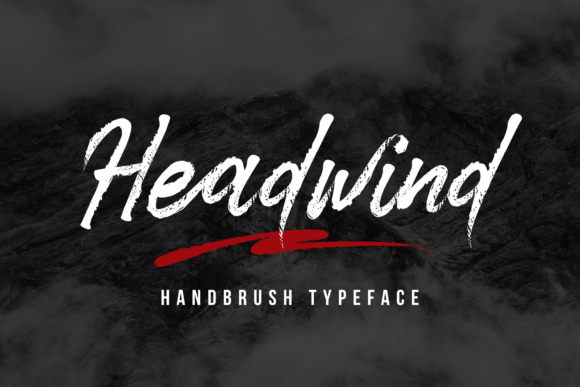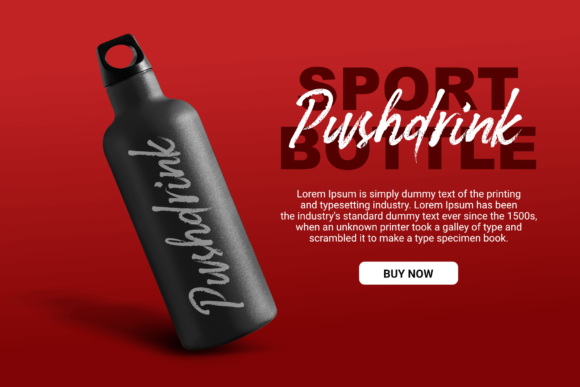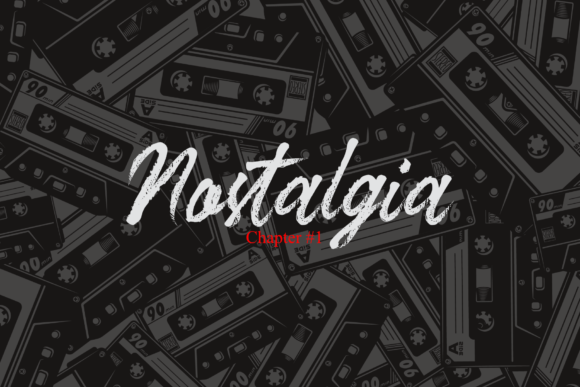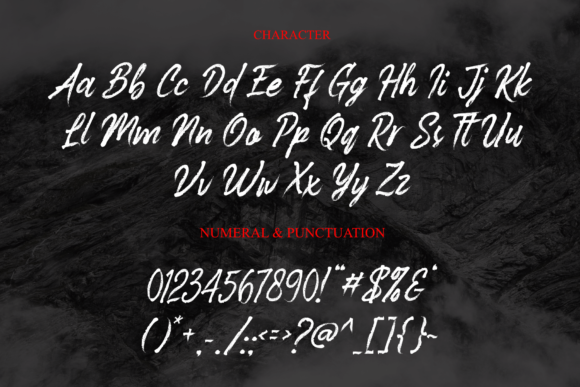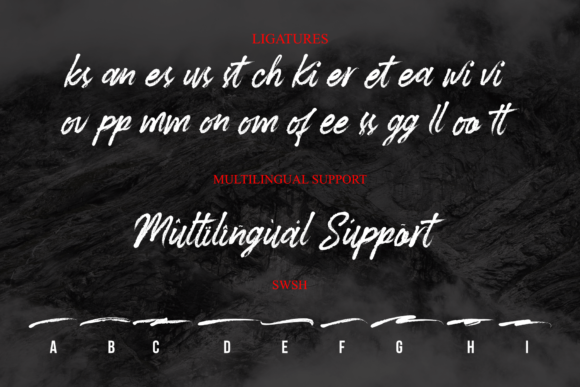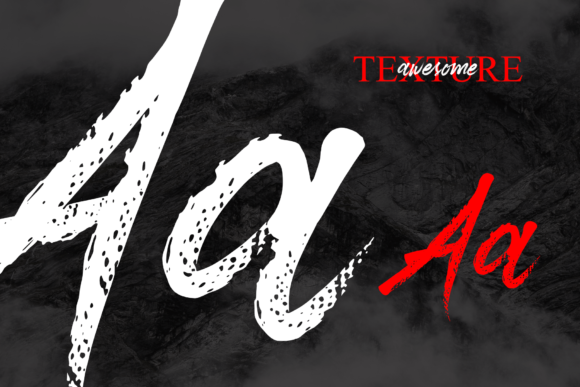
Headwind Font
About Headwind Font
Headwind is a beautiful and brushed handwritten font. This font is PUA encoded which means you can access all of the glyphs and swashes with ease! Fall in love with its incredibly versatile style and use it to create spectacular designs!